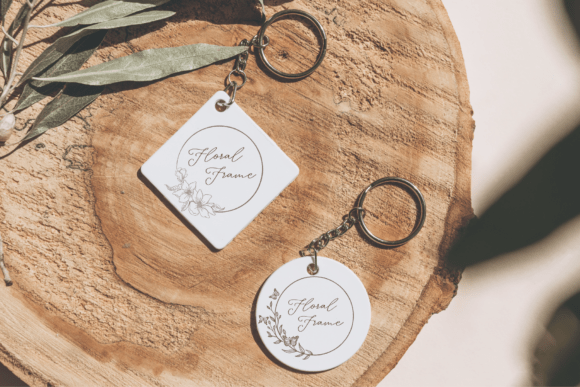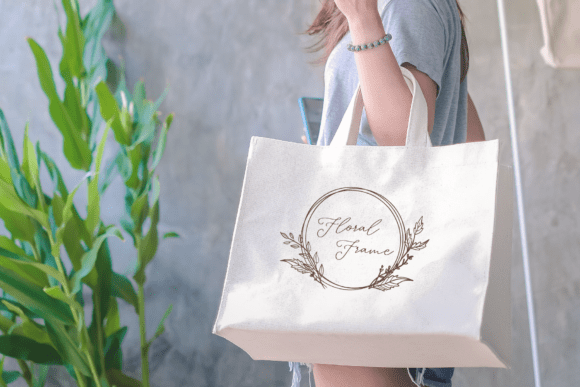
Floral Frame Font
Floral Frame is an elegant dingbat font featuring a variety of decorative wreaths and floral frames perfect for creating custom monograms, logos, and invitations. Each glyph is a unique hand-drawn frame ready to enhance your design with charm.